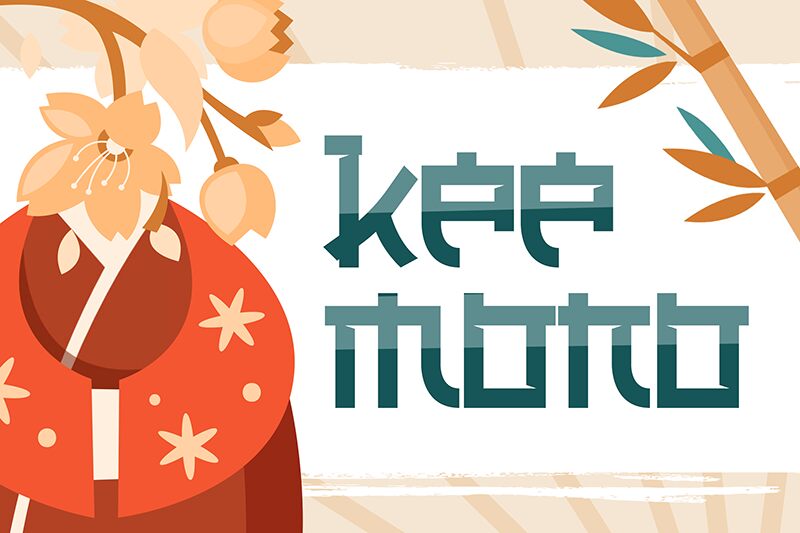
Keemono
Keemono font was crafted by Skytroopas to combine small brush strokes and pixel-like edges in a beautifully simple manner. The letters of this free Japanese font are monospaced, perfectly spaced, and very expressive of an oriental culture. Not only that, they also come in extremely fine details that can be examined when scaling the text into a large size.
Creatives can implement Keemono in different projects, including those related to tattoos, university posters and flyers for international events, travel agencies and Japanese-oriented brands. As for more artistic works ones can create invitations to parties or theme-park rides or even add it with casual illustrations on food packaging.